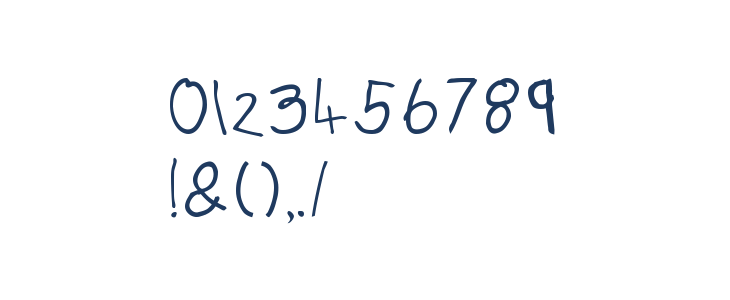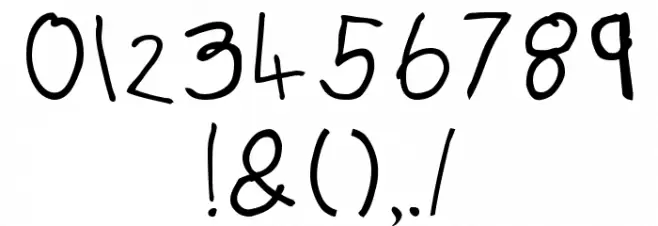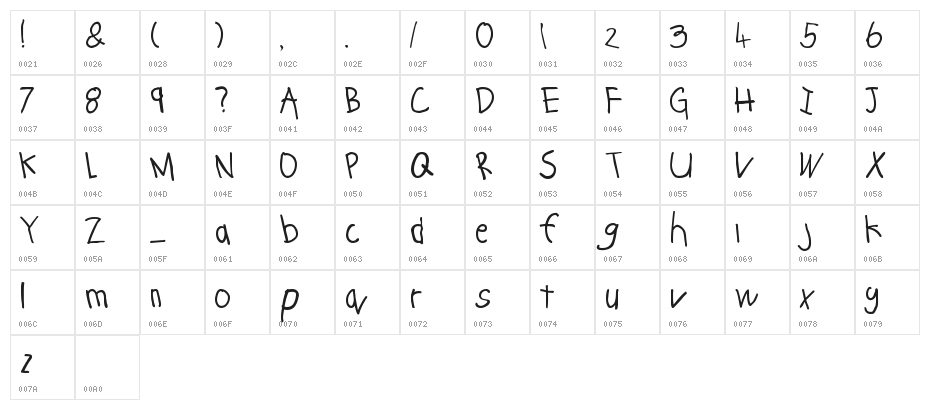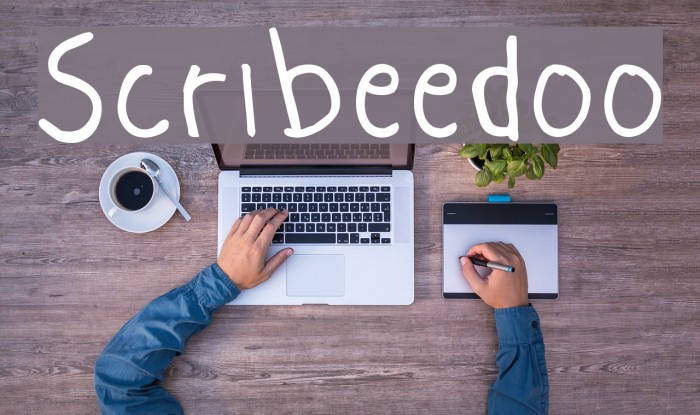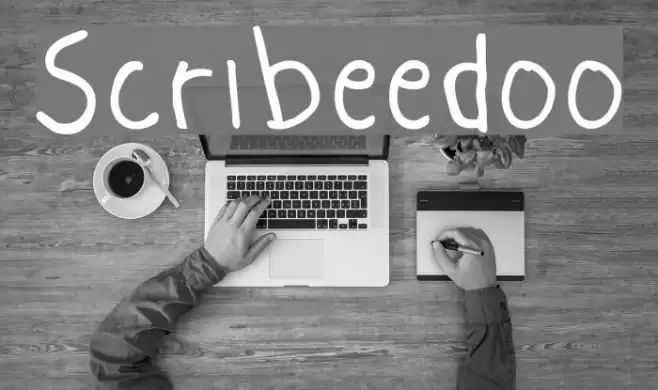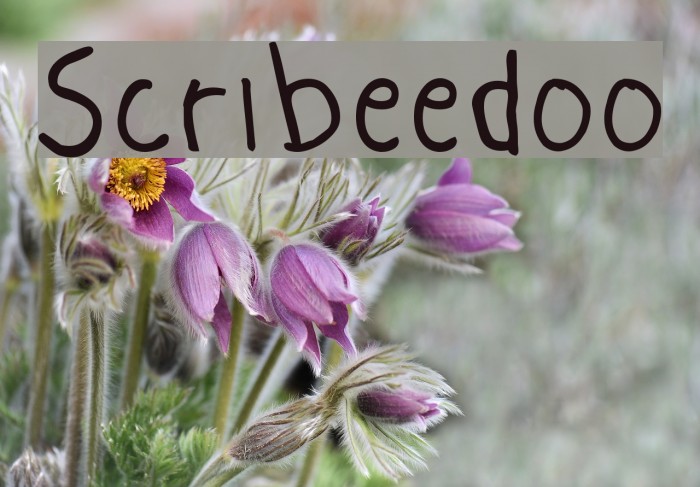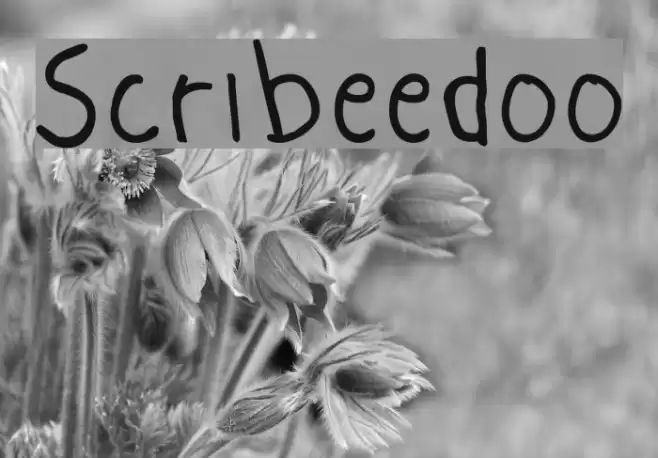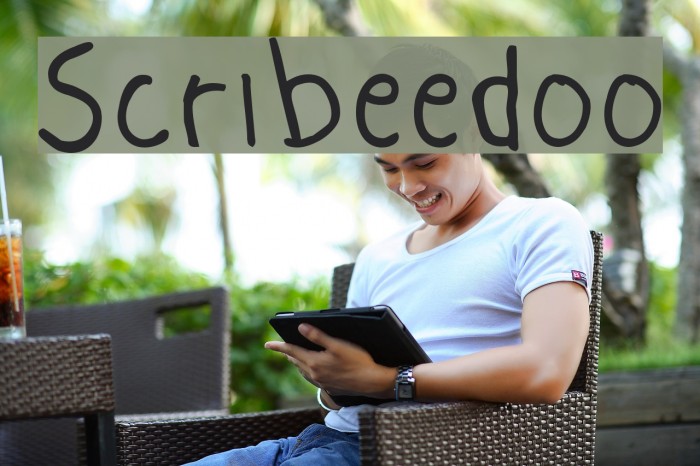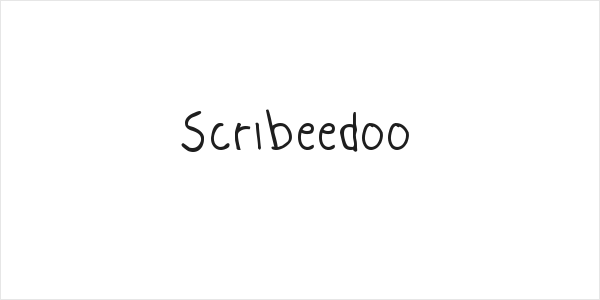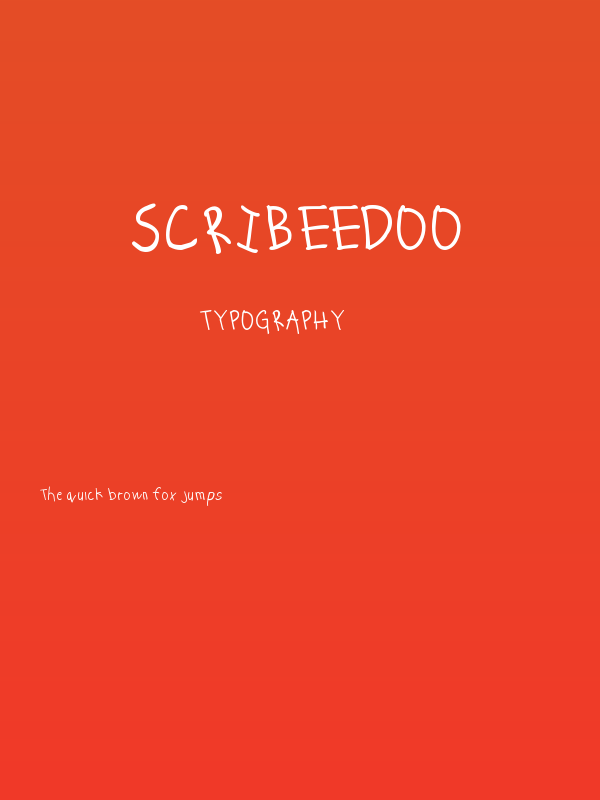
Scribeedoo Font
Scribeedoo Description
This playful and informal font features a handwritten style that exudes a sense of whimsy and creativity. The characters are slightly irregular, with varying stroke widths that add to its casual charm. The uppercase and lowercase letters maintain a consistent flow, while the numerals and special characters complement the overall aesthetic. Its organic and approachable appearance makes it suitable for projects that require a personal touch, such as invitations, greeting cards, or children's books. The font's unique style is both engaging and versatile, making it a great choice for creative endeavors.
| Proposed Projects | Ideal for invitations, greeting cards, children's books, and creative projects. |